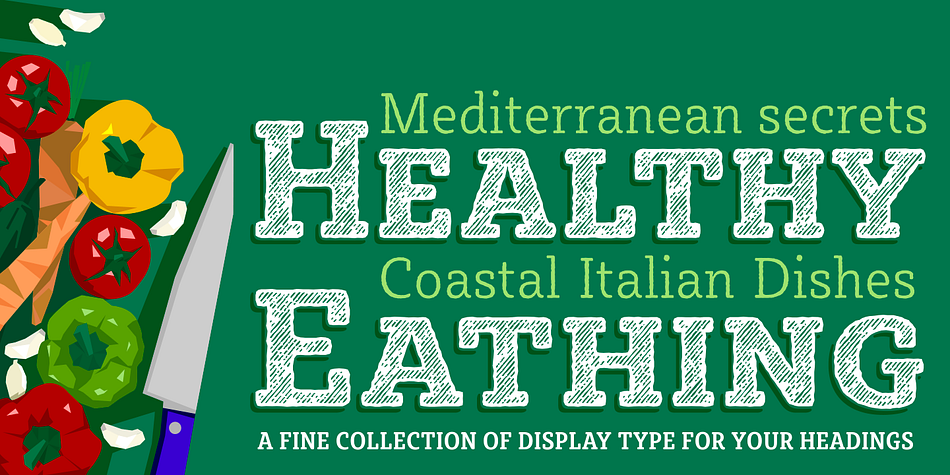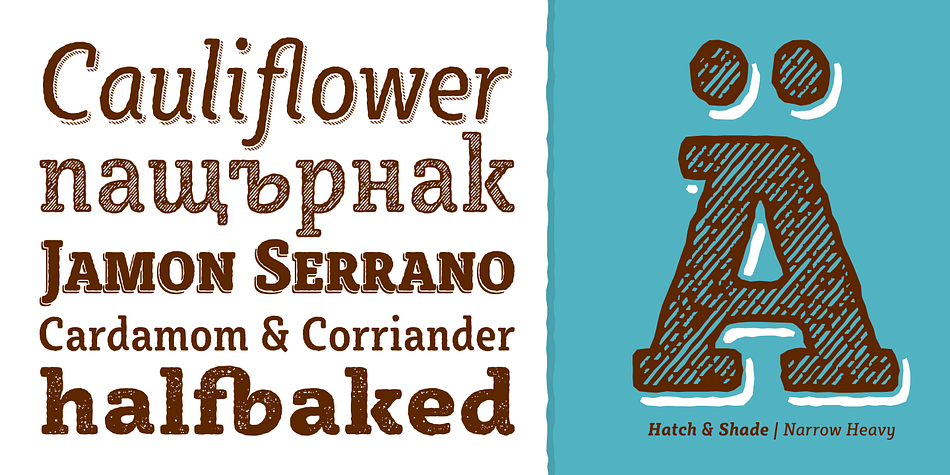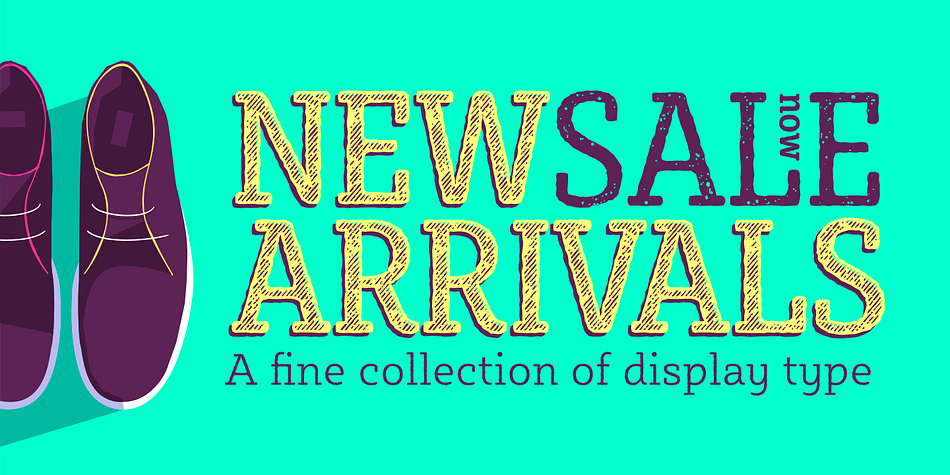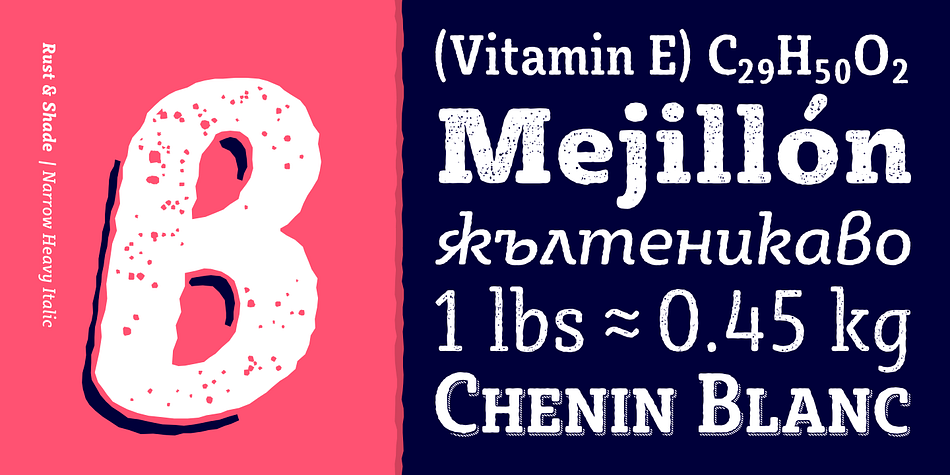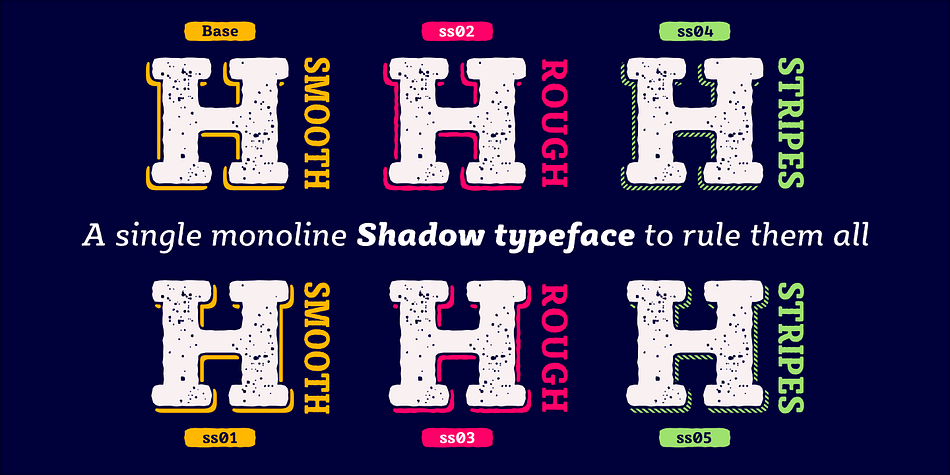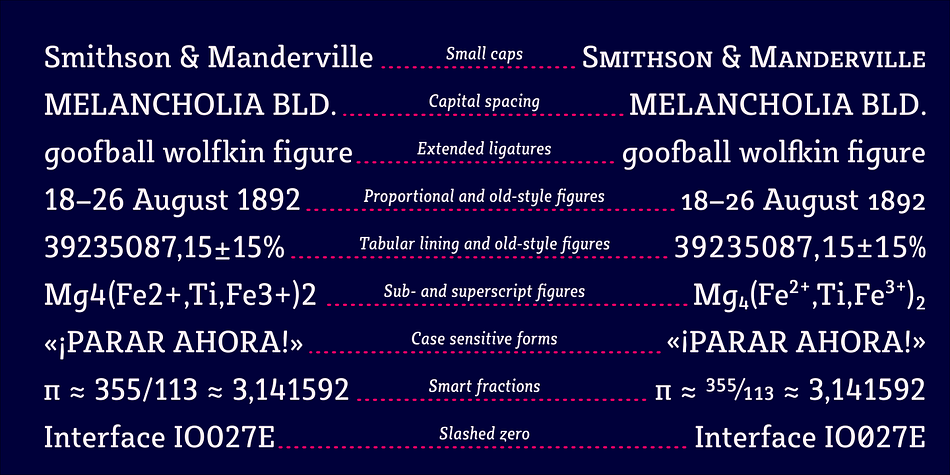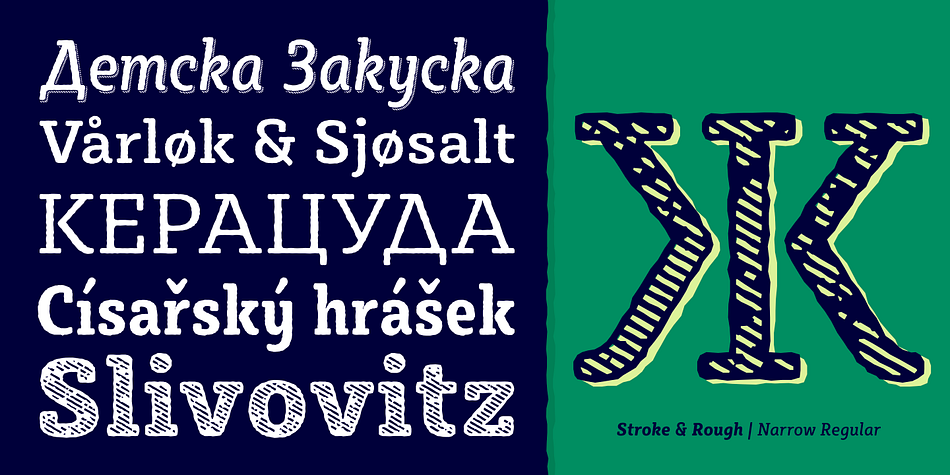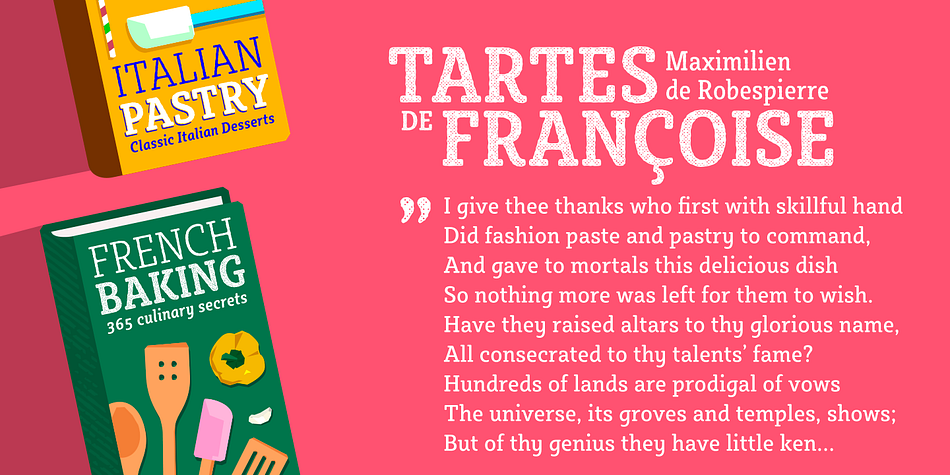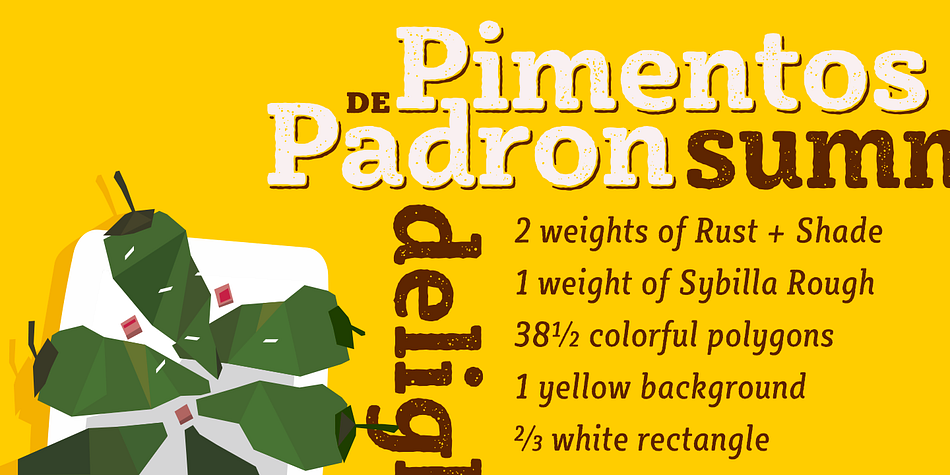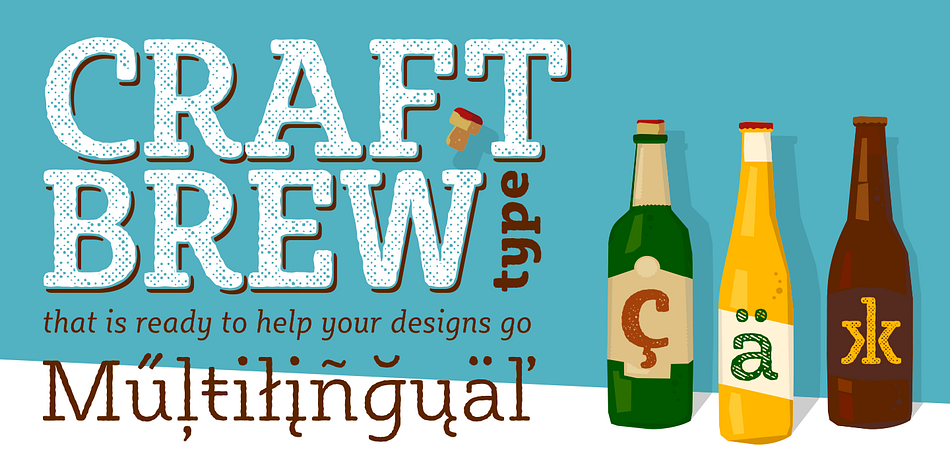
Designed by Vassil Kateliev, Sybilla Plaid Pro is a display slab font family. This typeface has forty-two styles and was published by Karandash.
Take a deep dive into the Sybilla multiverse with this unique 294 style multi-versatile type family ñ a further creative exploration of the capabilities offered by our original warm and friendly slab design. Encompassing one body and six display sub-families, Sybilla Multiverse is a unique attempt to create a never before seen symphony of text and decorative type that spans in multiple usable widths and weights. Each sub-style consists of seven weights in three widths with complimentary true italics. Sybilla Multiverse is ideally suited for advertising and packaging, editorial and publishing, logo, branding and creative industries, poster and billboards, small text and signage as well as web and screen design.
Every one of the styles offered (body or display) provides a broad range of advanced typographical features such as small caps, case-sensitive forms, fractions, scientific inferiors, super- and subscript characters. It comes with a complete figure range set of oldstyle and lining figures, each in tabular and proportional widths.
Sybilla Multiverse has extensive multilingual support, covering more than 70 Latin-based languages and specially designed Cyrillic that works harmoniously with its Latin counterparts ñ a perfect choice for projects that need both writing systems running side by side.
Style | Display Slab |
Designer | Vassil Kateliev |